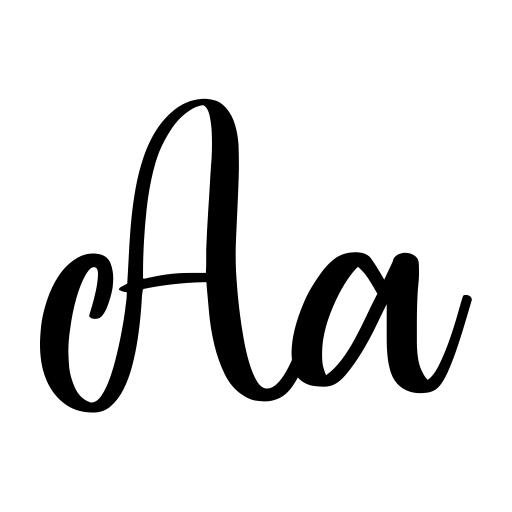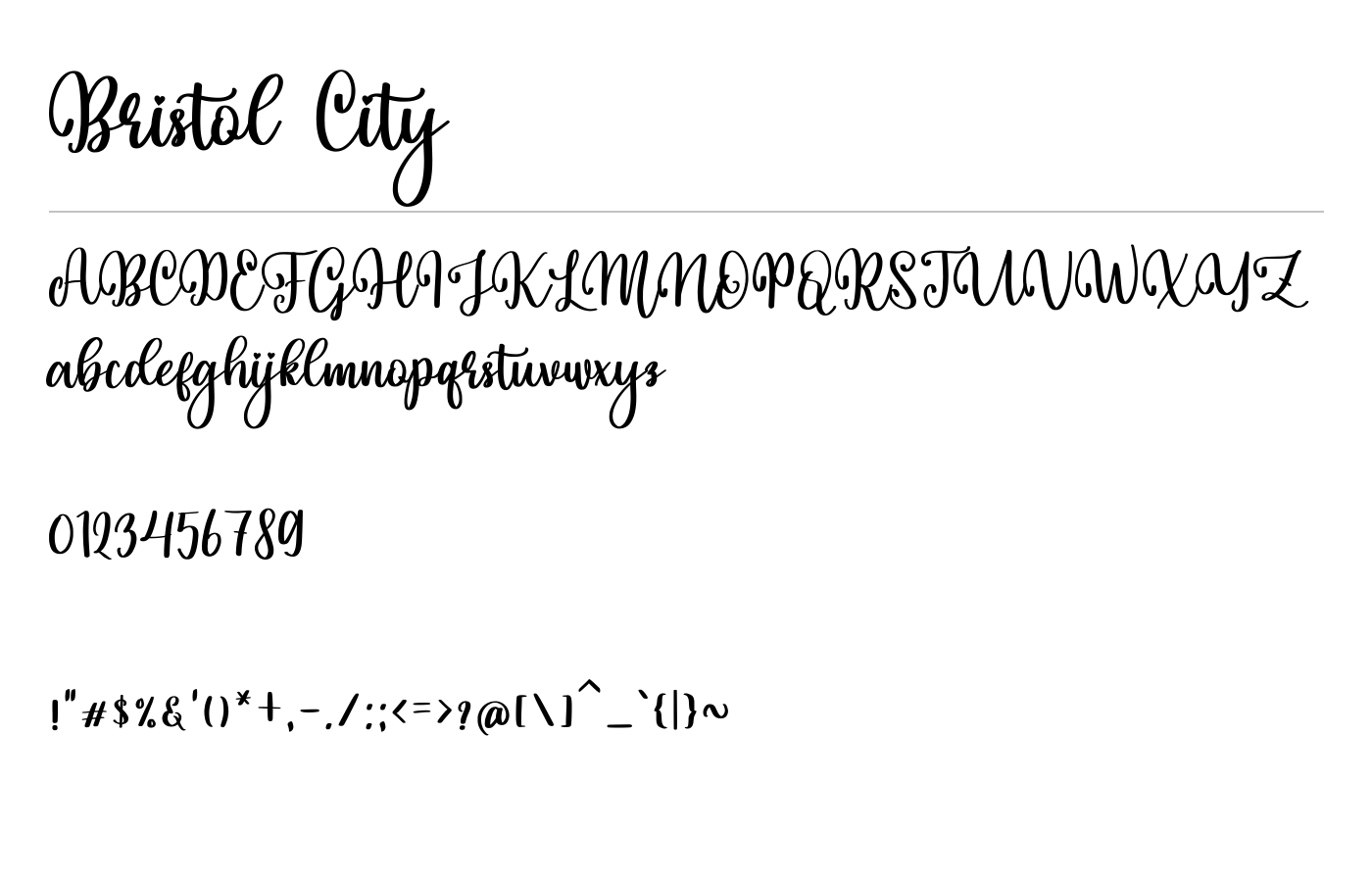
Bristol City is an elegant script font featuring flowing, connected letterforms with a playful yet refined personality. Its smooth strokes and distinctive, cursive style make it perfect for branding, invitations, and creative projects that require a warm, handcrafted feel. This font works well in headlines and decorative text, adding charm and sophistication to any design.
Bristol City Font